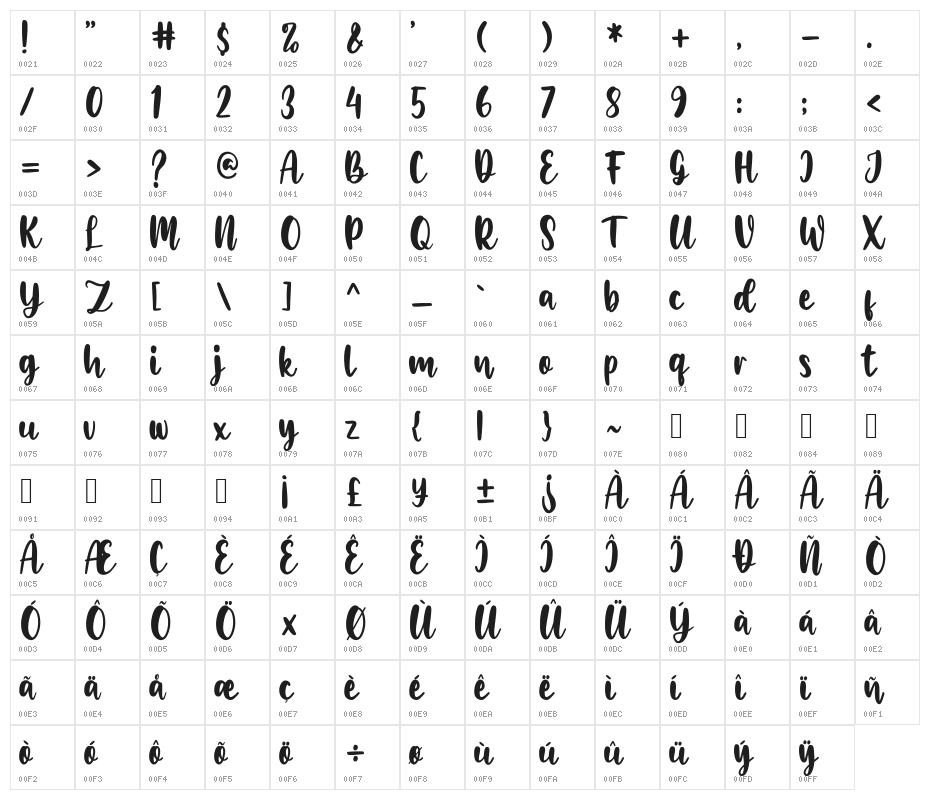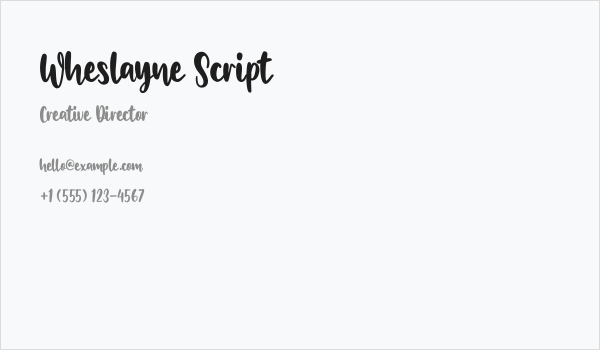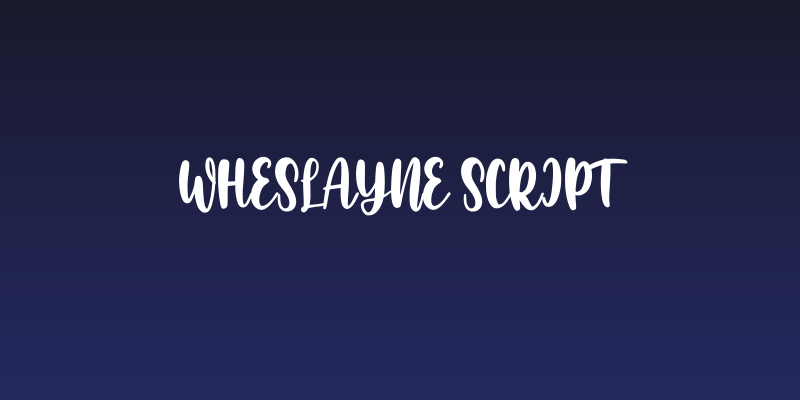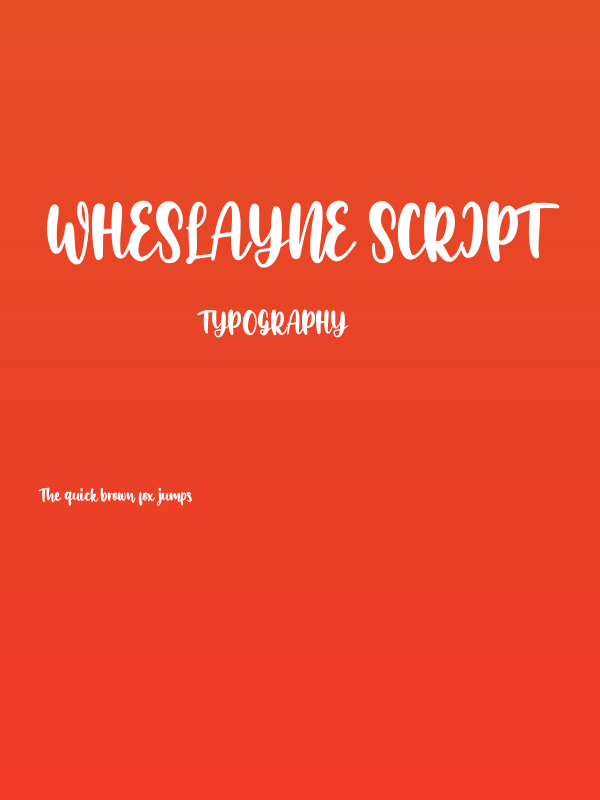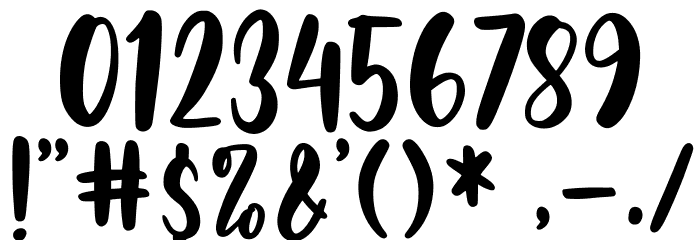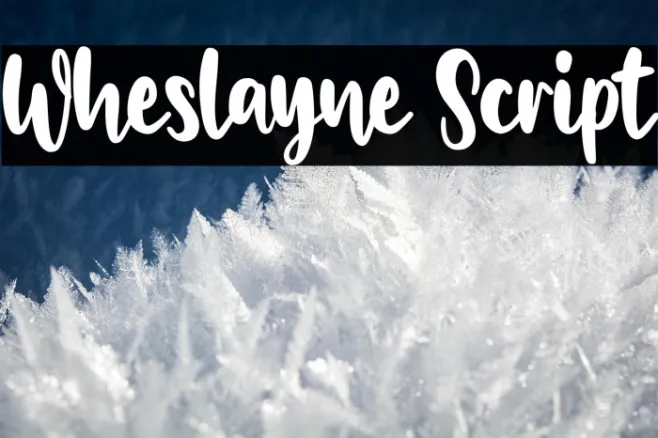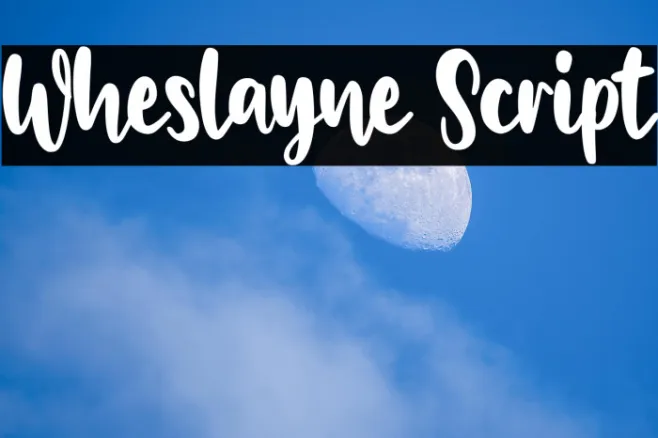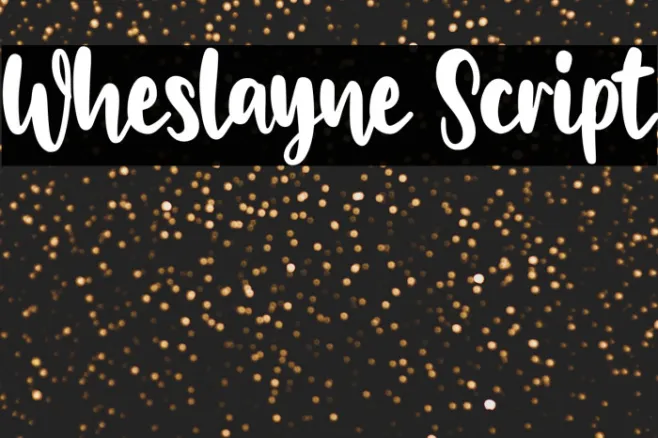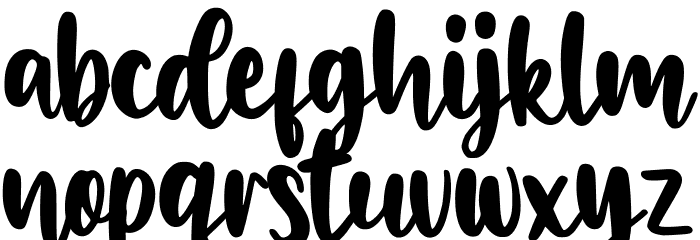
Wheslayne Script Font
Wheslayne Script Description
This font features a bold and expressive script style, characterized by its flowing, cursive letters that exude a sense of elegance and playfulness. The uppercase letters are slightly more structured, while the lowercase letters exhibit a more freeform, handwritten appearance. The numbers and special characters maintain the same lively and dynamic style, ensuring consistency throughout. The strokes are thick and rounded, giving the font a friendly and approachable feel. This font is perfect for adding a personal touch to any design, making it ideal for creative projects that require a unique and artistic flair.
| Proposed Projects | Ideal for invitations, greeting cards, logos, and branding materials that require a personal and artistic touch. |